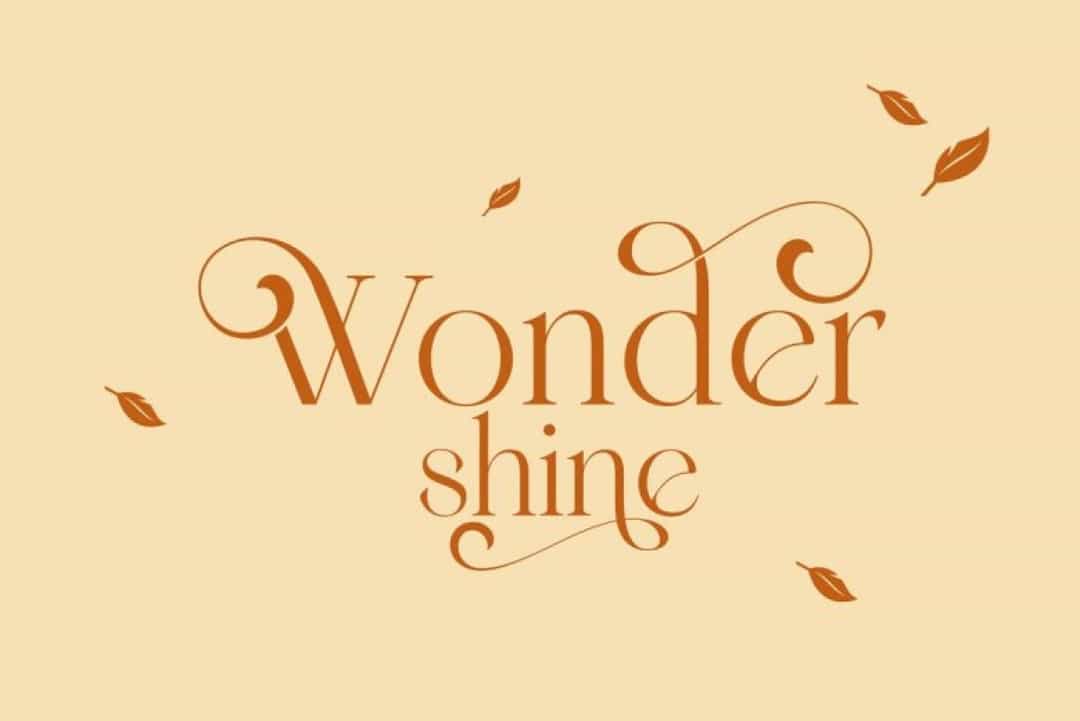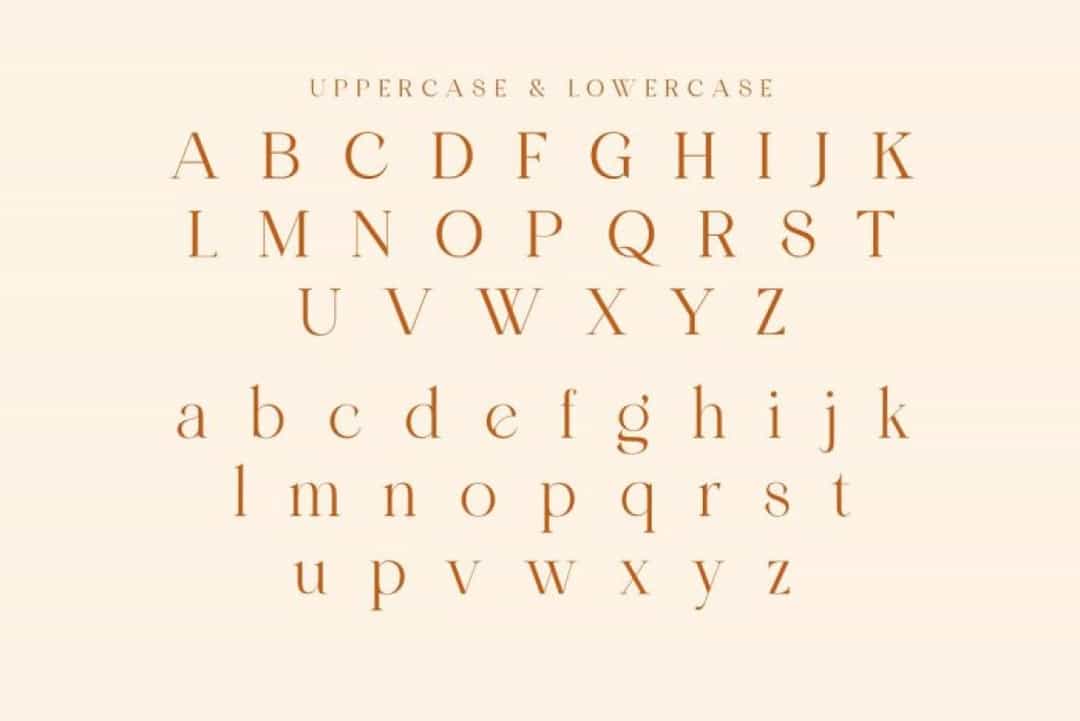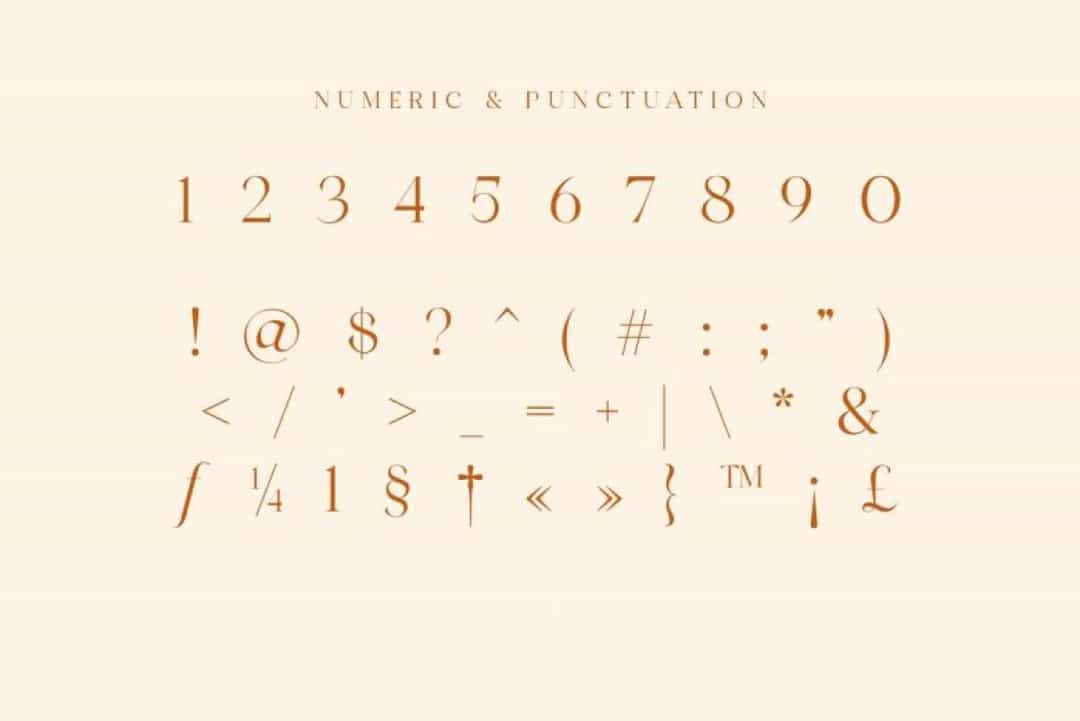
Discover Wondershine Font, part of the Serif Display collection—a versatile and unique font perfect for adding a personal touch to your projects. Download it for free and enjoy crafting designs with style, from invitations to social media posts. This font is available exclusively for personal use, giving you the freedom to create without limits. Unlock your creativity with Wondershine Font today!
Wondershine It is an elegant beauty, smoothness and beauty serif font designed for display. Perfect for invitation cards as well as decorations, clothing items or greeting cards; with uppercase and lowercase numeric punctuation as well as multilingual support available as well as various ligatures and stylistic alternatives available to users.